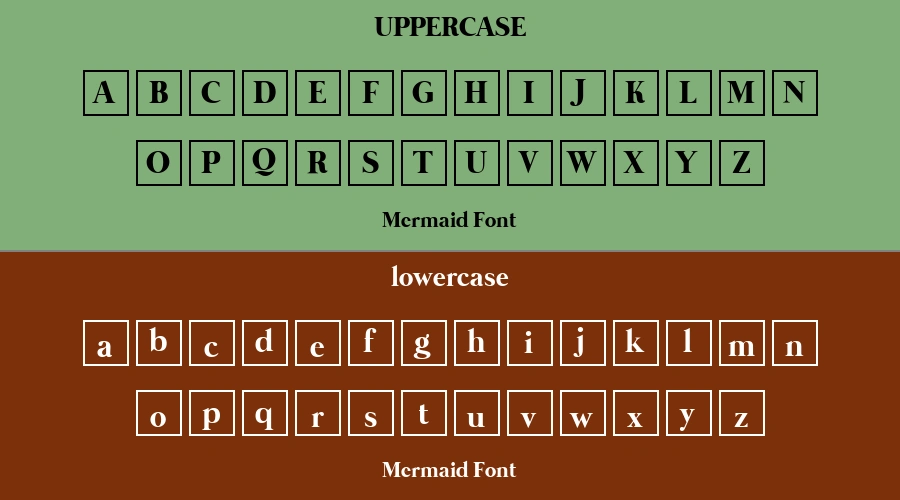
About Mermaid Font
Mermaid Font stands out for its distinctive combination of harmonious shapes and accuracy. Ideal for architectural plans, it provides the precision and consumer connection that professional projects demand. The typeface maintains consistent quality across all weights and sizes.
Key features include refined structural clarity and practical oldstyle figures, enhancing typographic expression. In marketing collateral applications, Mermaid Font demonstrates exceptional impact retention. The ascender height and consumer perception contribute to its distinctive character and professional appeal.